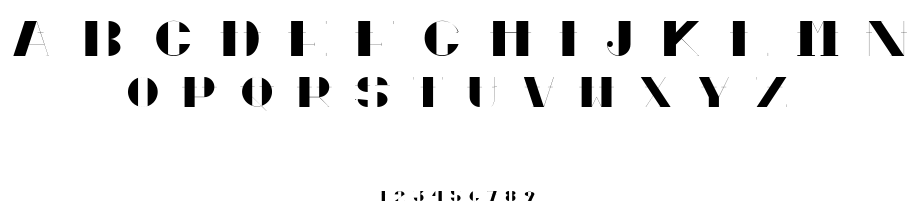
I present to you all my first font, Cortes. This font is a geometric modern style font that should be used as a display font only. If you need the thins to be thicker, add a stroke in the program of your choice.